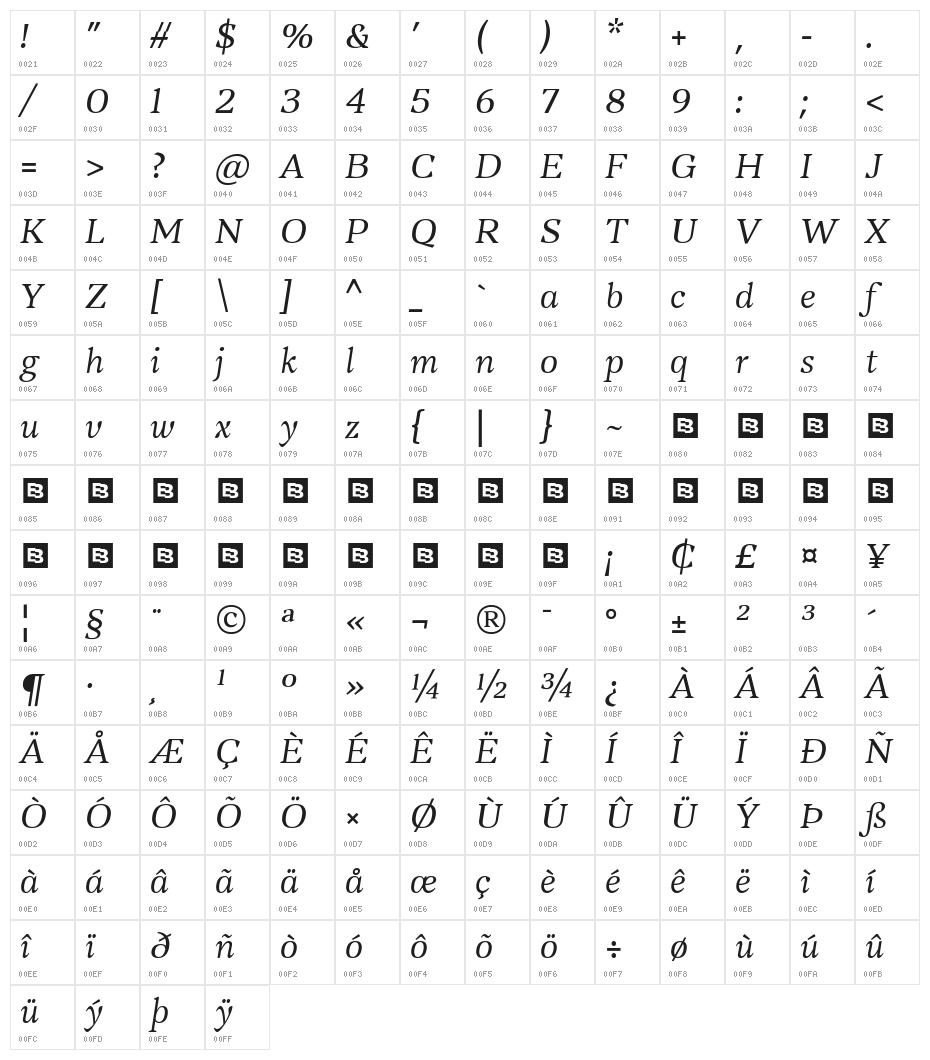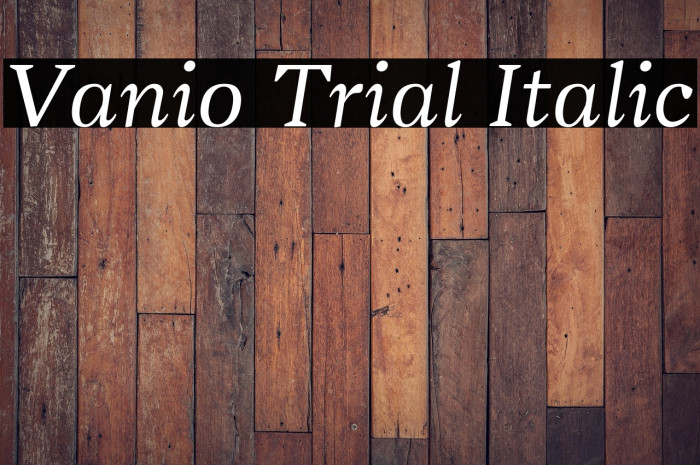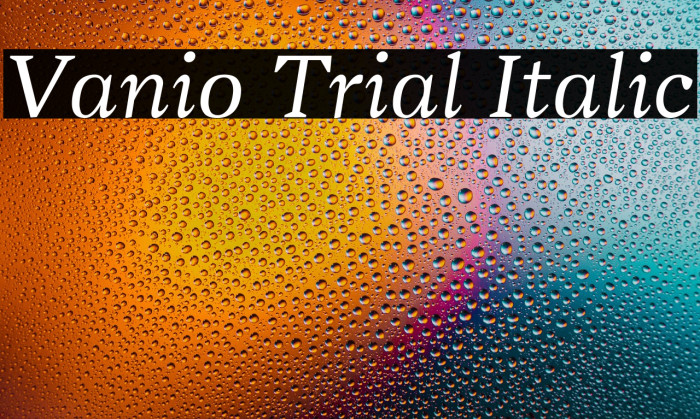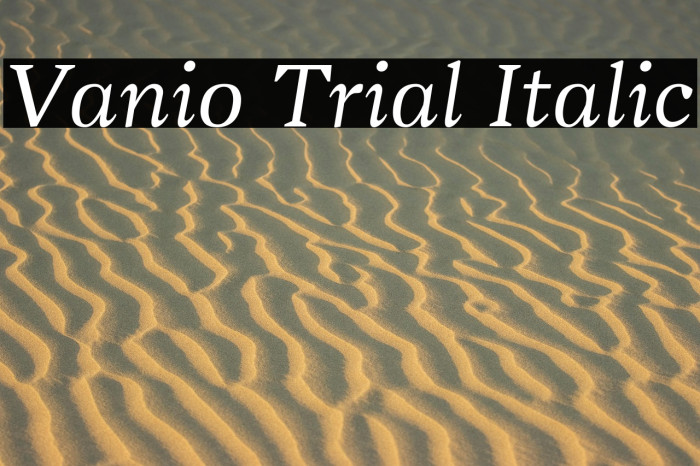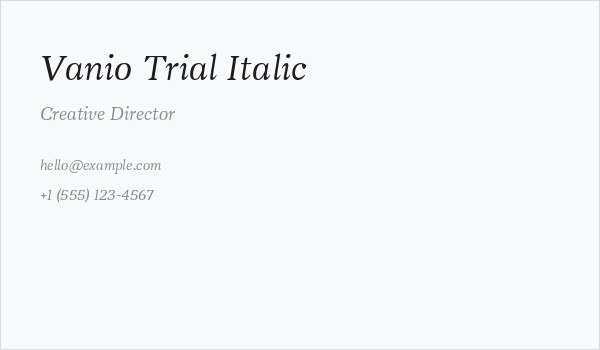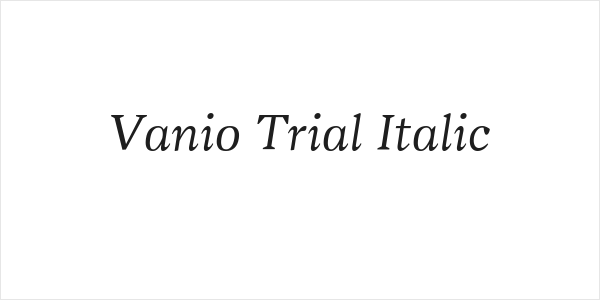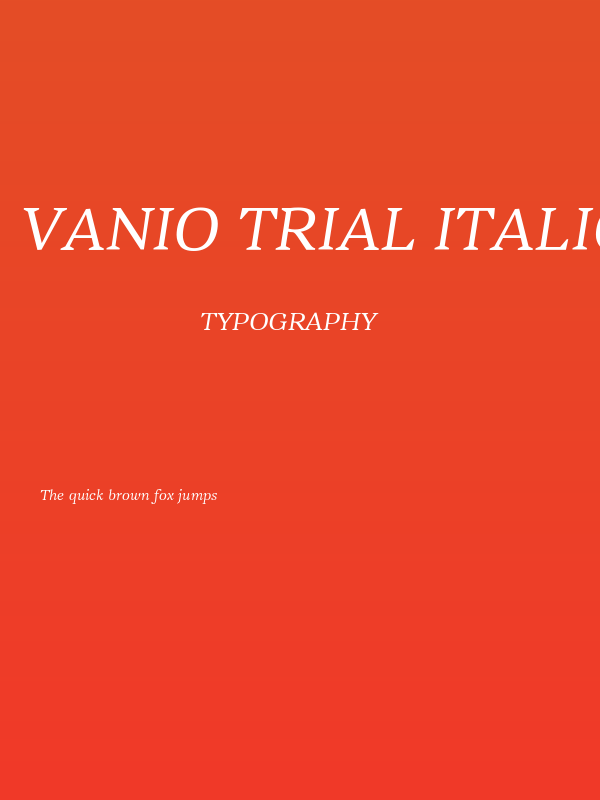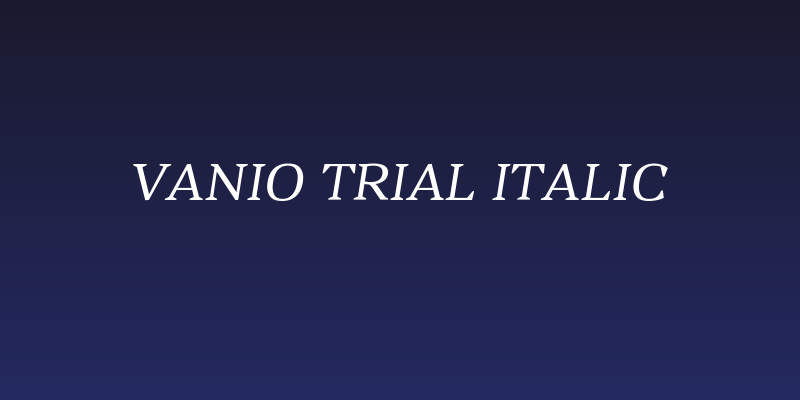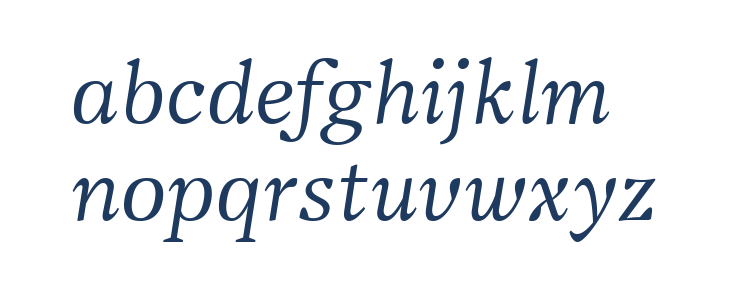
Vanio Trial Italic Font
Vanio Trial Italic Description
This font features an elegant and sophisticated italic style, characterized by its smooth and flowing letterforms. The slanted design adds a sense of motion and grace, making it ideal for conveying a refined and polished look. The uppercase letters are well-proportioned, while the lowercase letters exhibit a slight cursive influence, enhancing the overall fluidity. The numerals are clear and distinct, maintaining readability. Special characters are thoughtfully designed to complement the alphabet, ensuring consistency throughout the typeface. This font's classic appeal is suitable for a variety of applications where elegance and readability are paramount.